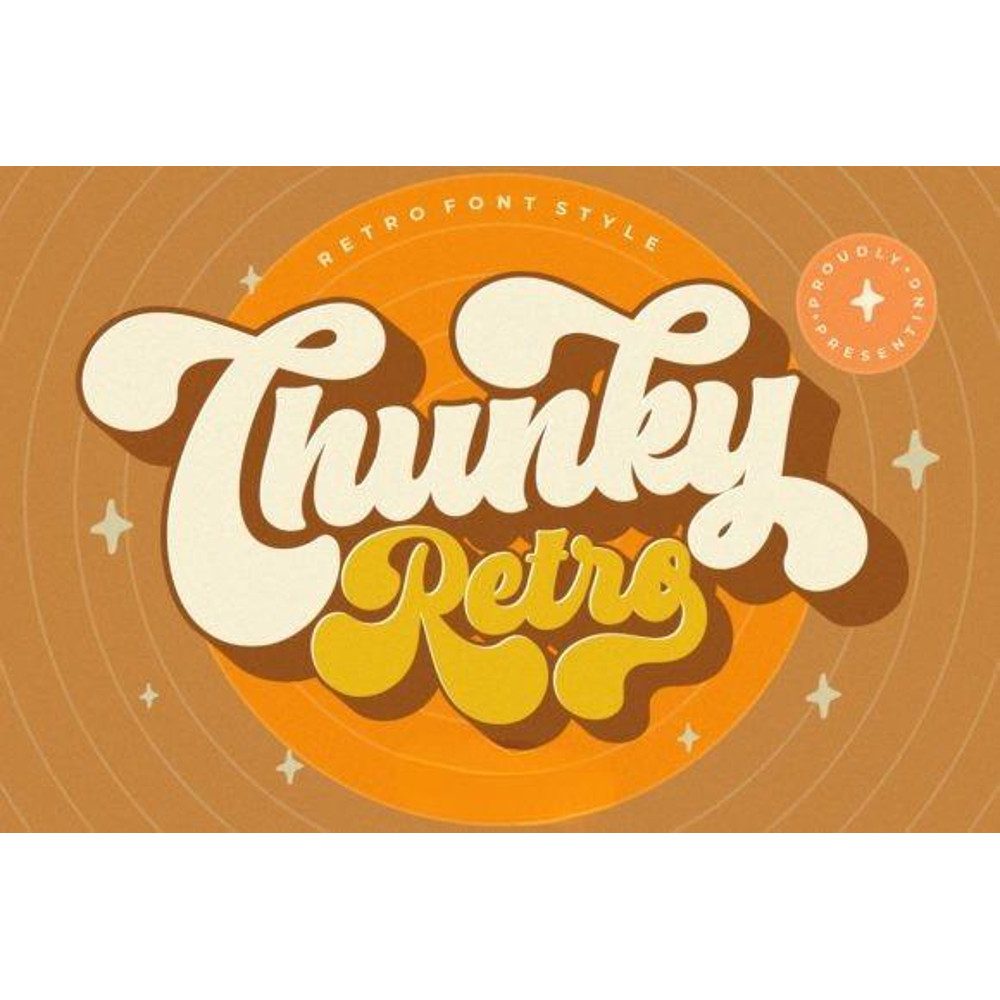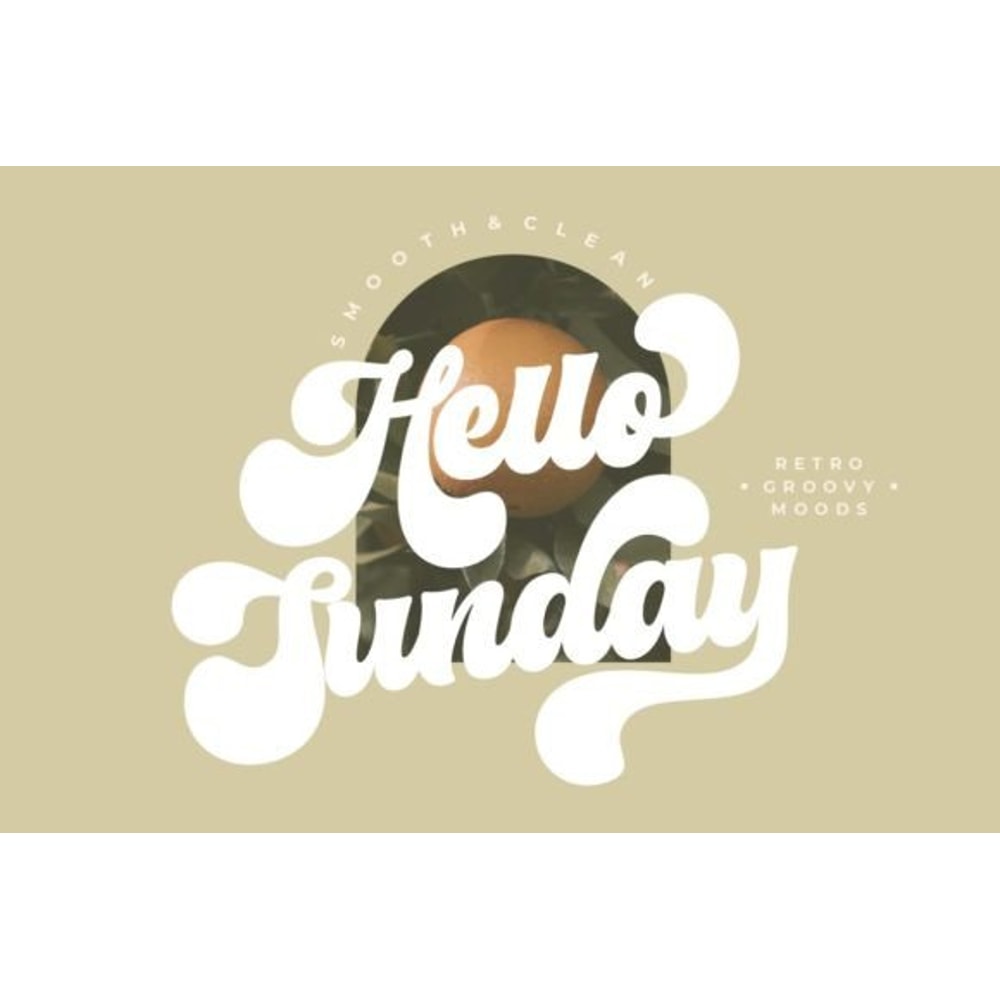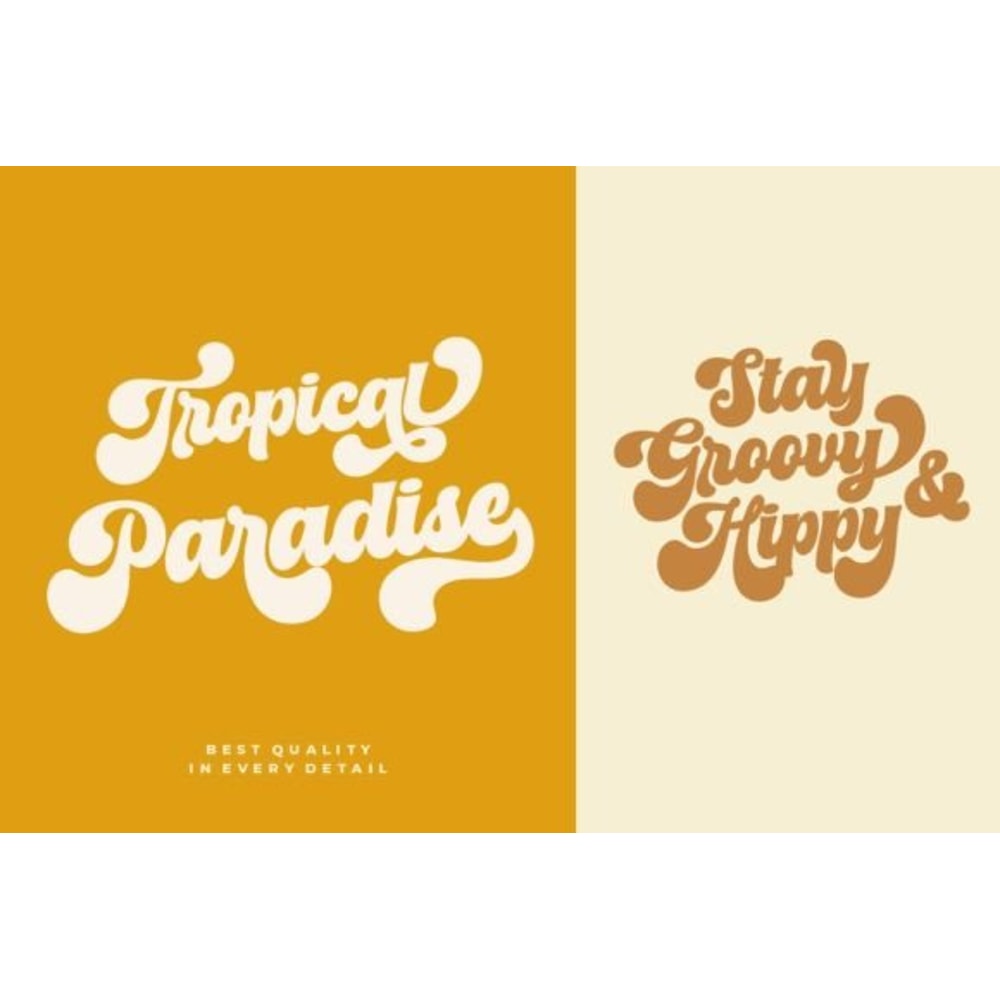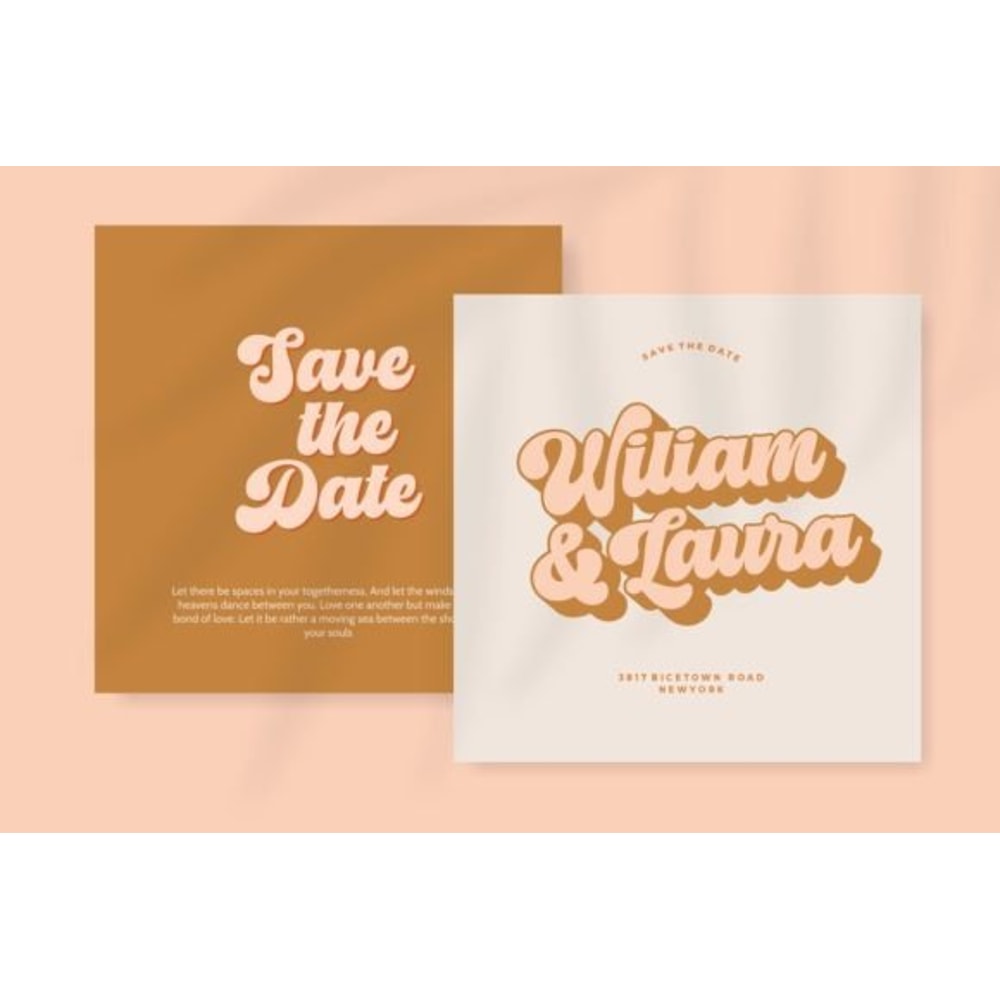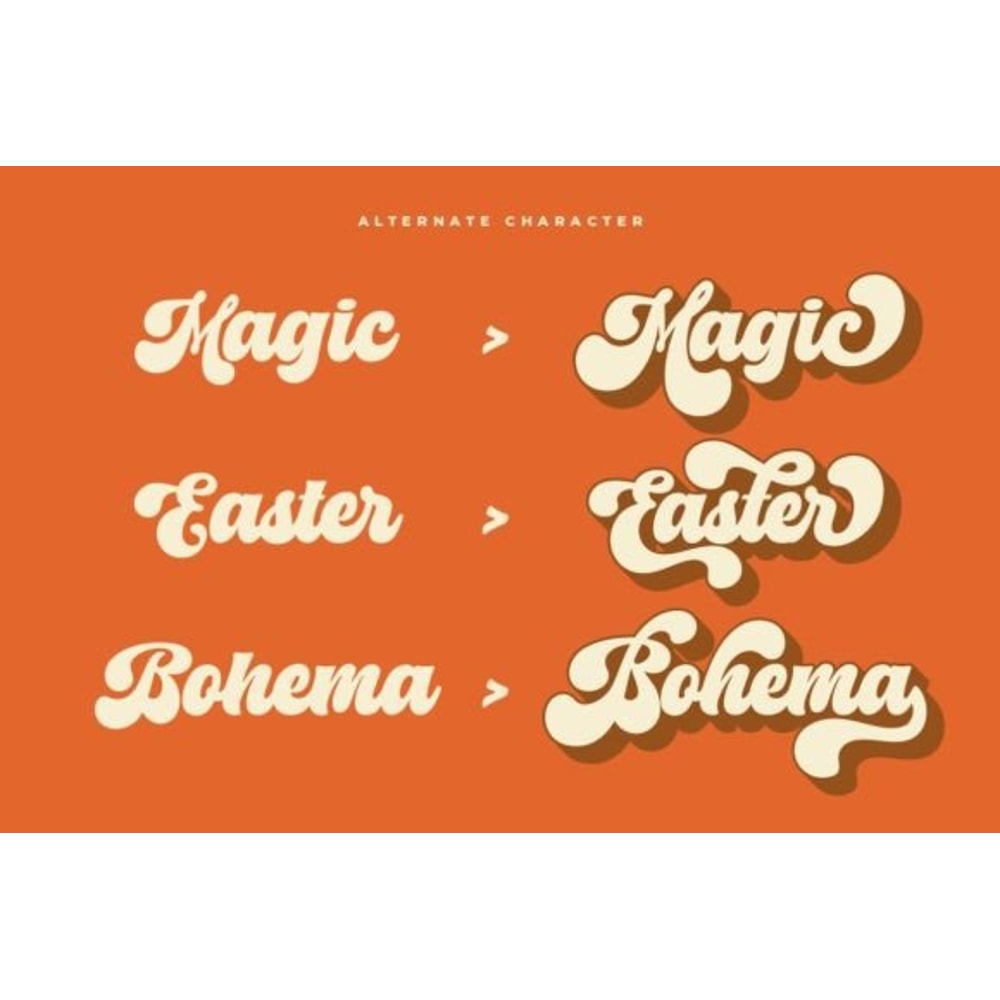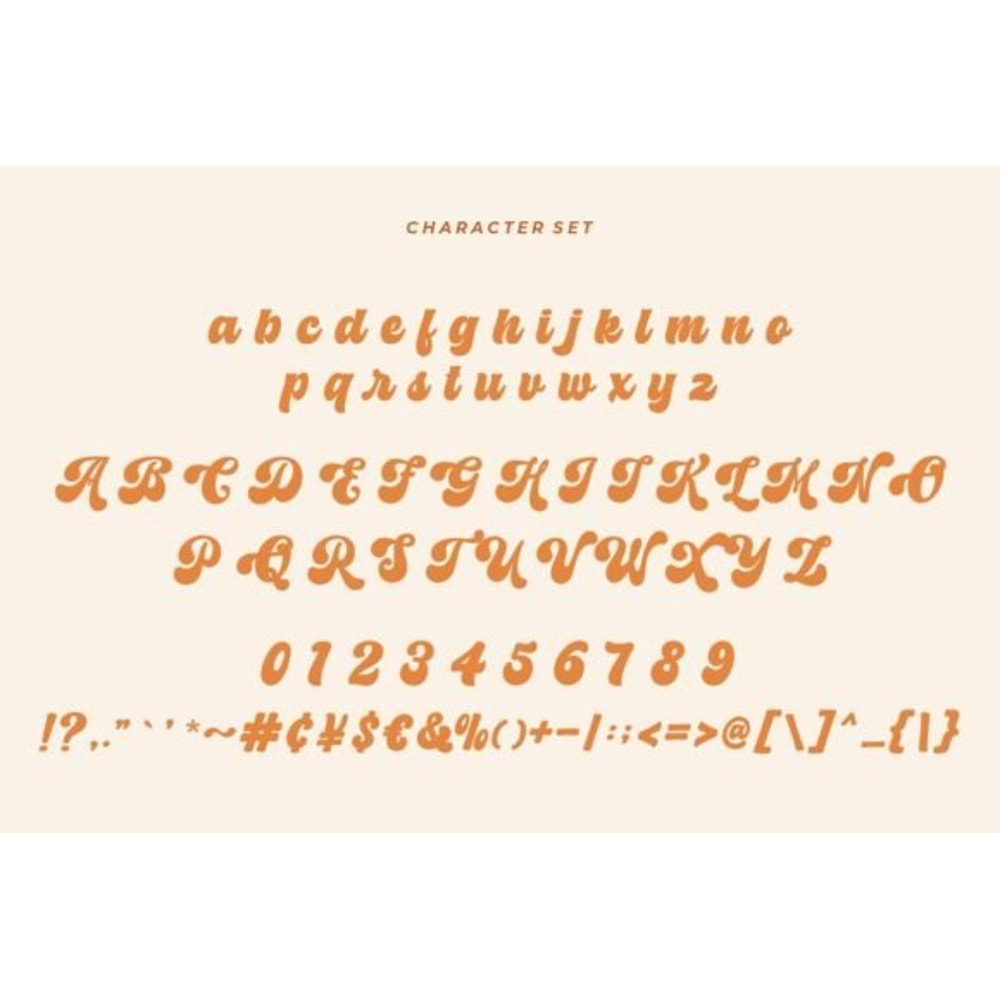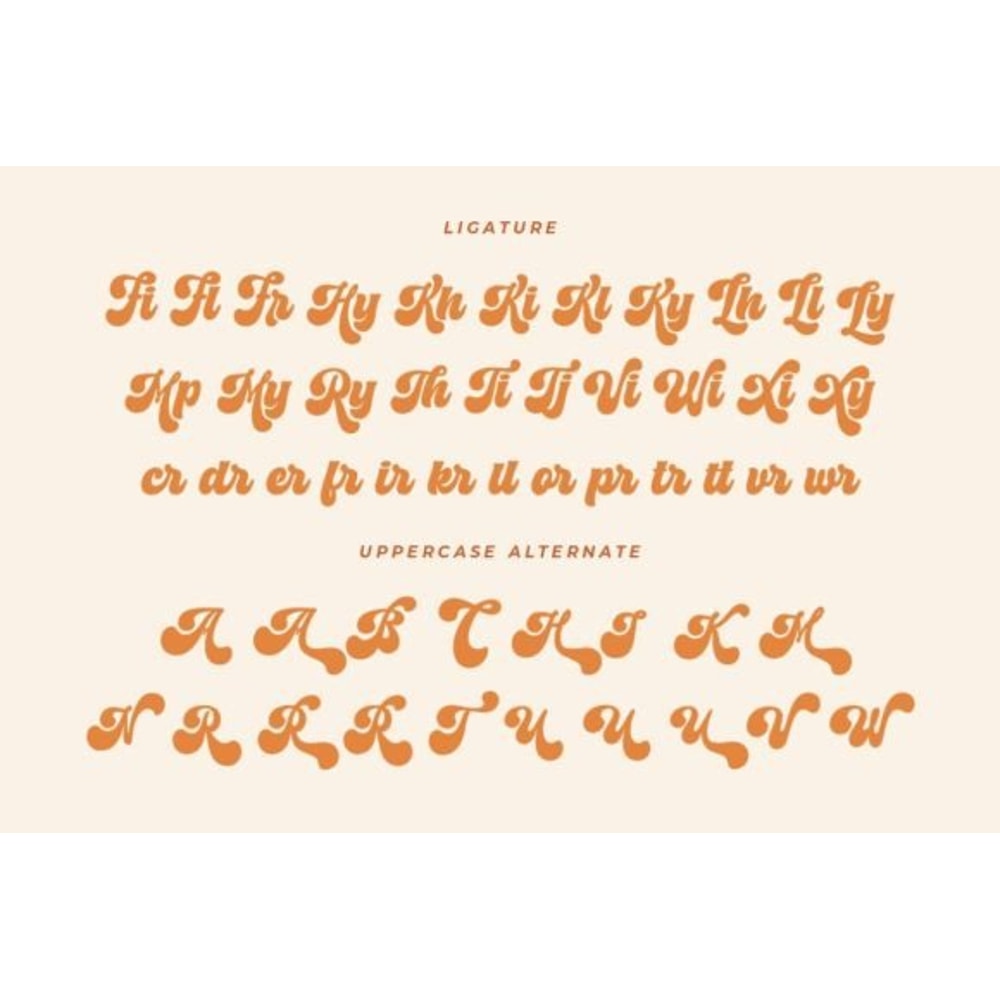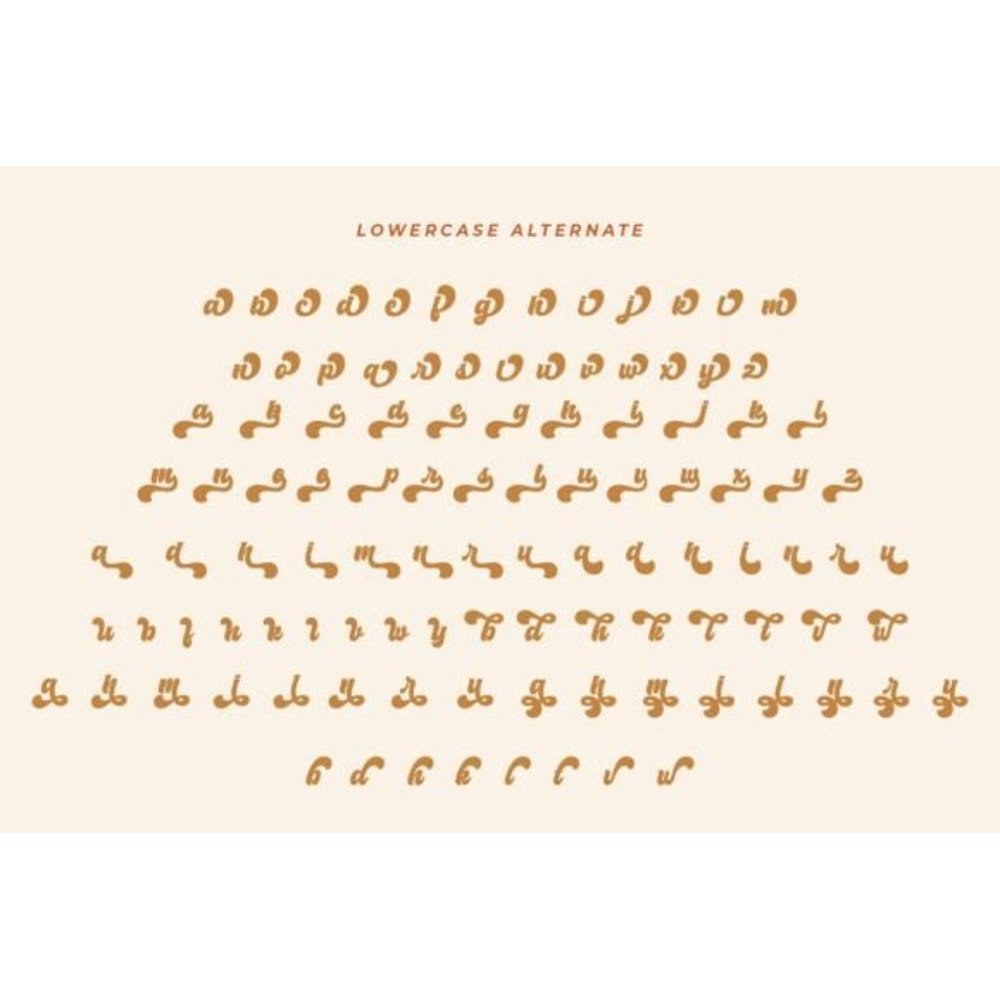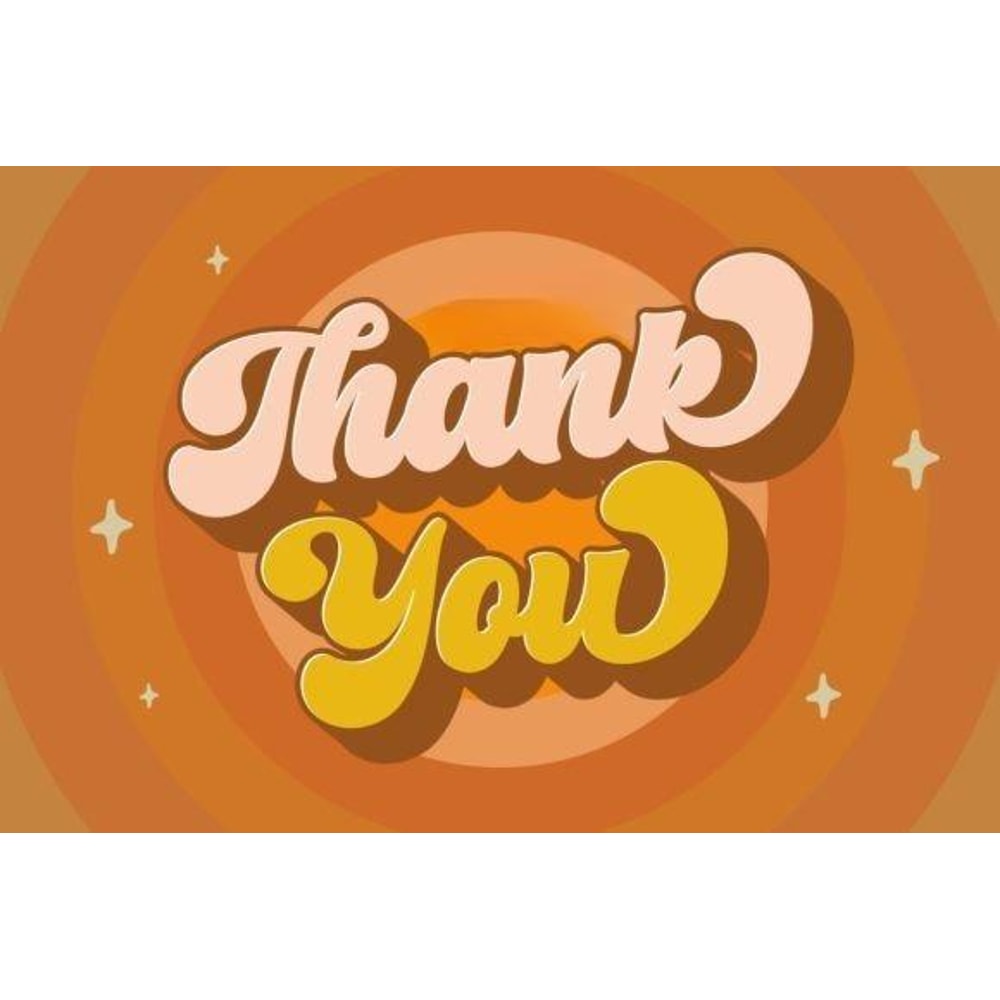
Chunky Retro Font
Chunky Retro is a modern, clean and smooth retro font style. This font comes with a unique shape where every corner is smoother and more rounded. Use this display font to add that special retro touch to any design idea you can think of!